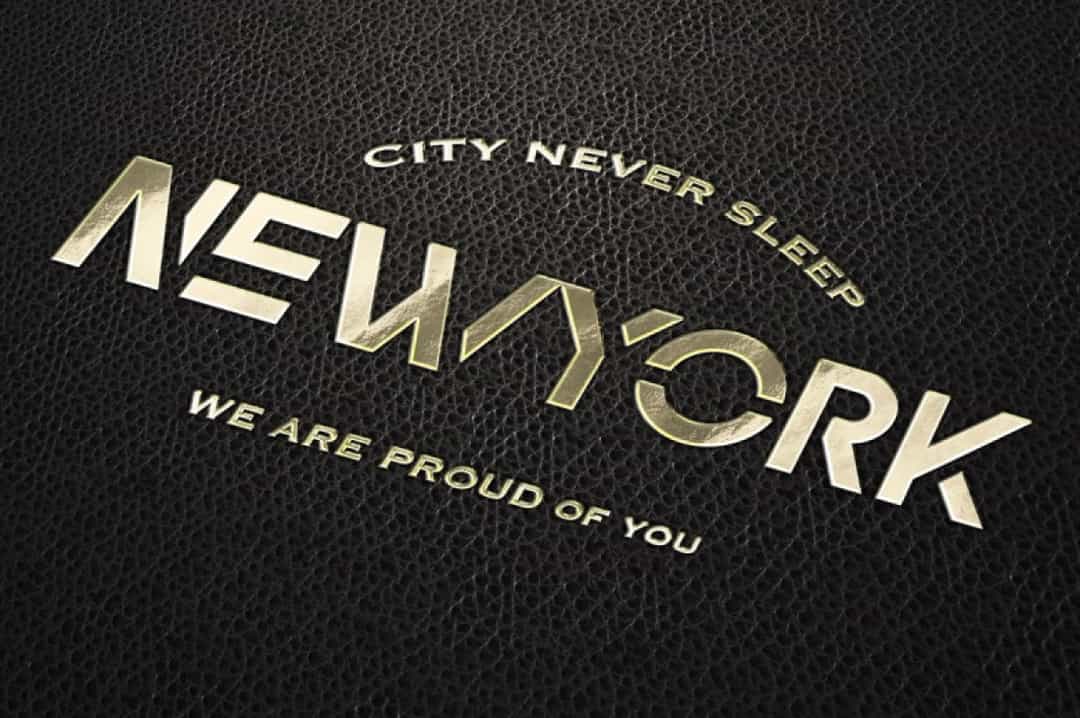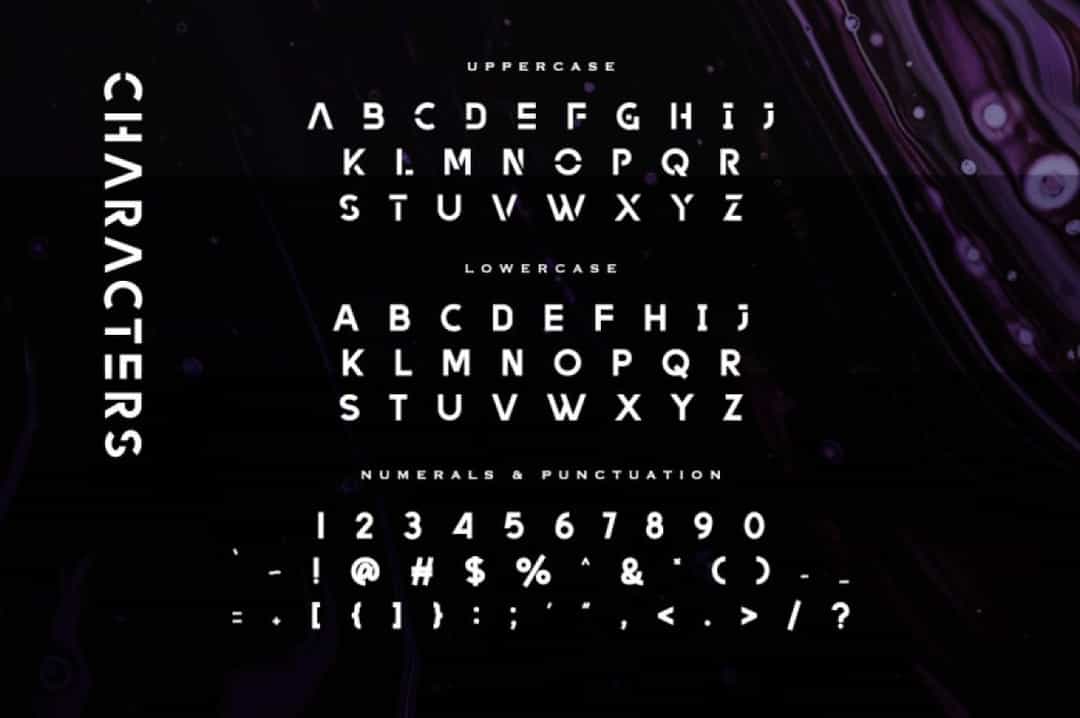
Modera Font
Modera is an eye-catching font designed specifically to be used as logotype. Ideal for web design and business card use, as well as any project which calls for contemporary and timeless aesthetic.